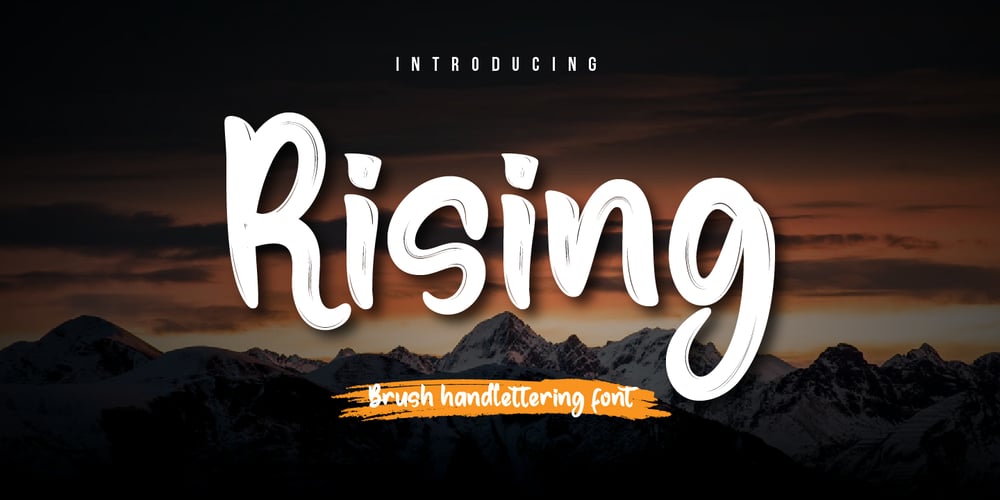
Rising Font Family was designed by Lita Faolina and published by Product Type. Rising contains 1 styles and family package options. Get ready to inject some excitement into your designs with Rising – Brush Handwritten Font! With its lively strokes and vibrant design, Rising captures the spirit of movement and energy like no other. Whether you’re designing electrifying event posters, creating dynamic social media graphics, or giving your branding a fresh new look, Rising is your secret weapon for making a splash. Get ready to rise above the competition and make your designs shine with Rising – the font that’s bursting with life!